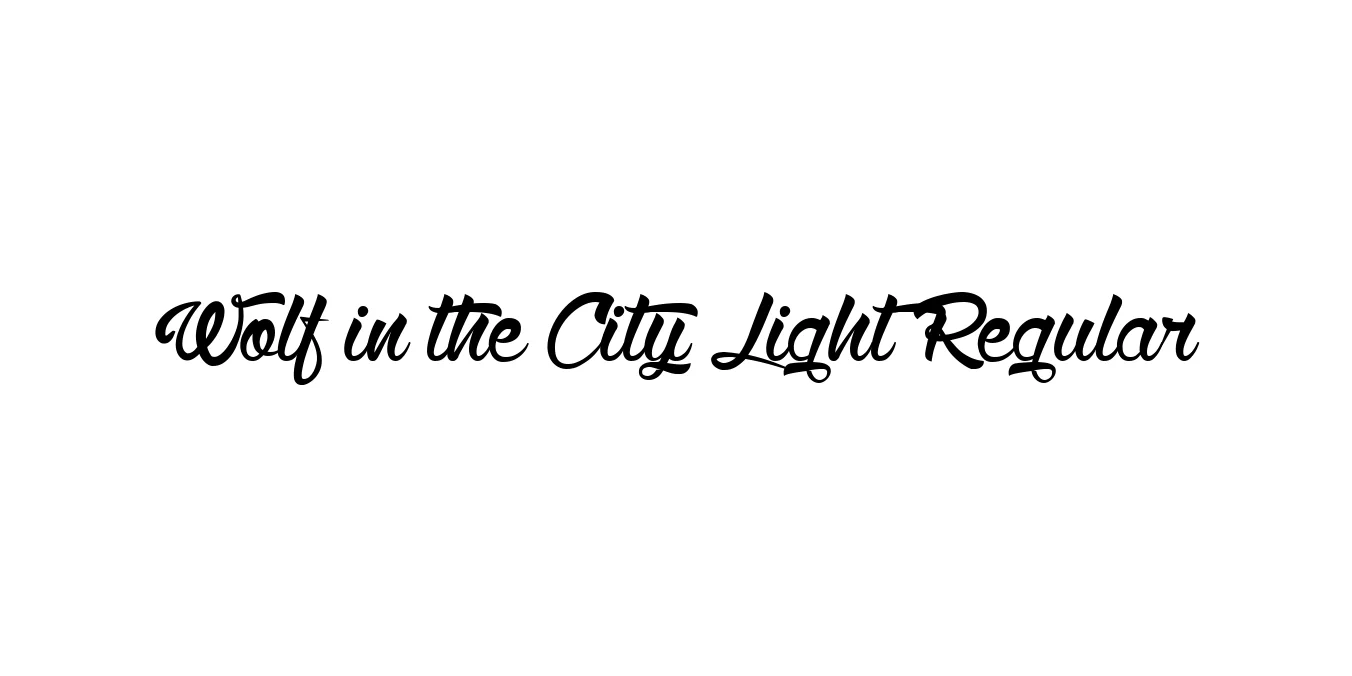
Wolf in the City Light Regular
Wolf in the City Light Regular is a stylish and expressive script typeface designed by the renowned artist Maelle.K. It captures a unique urban essence, combining the fluidity of traditional calligraphy with a modern, edgy street-style influence. The light weight of this specific version provides a delicate, airy feel that maintains high legibility while offering a sophisticated, hand-drawn aesthetic that feels both personal and professional.
This typeface is widely recognized for its authentic handwritten strokes and rhythmic flow, making it a favorite among designers looking to inject personality into their projects. Whether used for minimalist branding or high-energy marketing materials, Wolf in the City Light Regular stands out for its versatility and its ability to convey motion and creativity in any digital or print layout.
Wolf in the City Light Regular Best Uses
Excellent for creating unique, signature-style brand identities.
Perfect for eye-catching Instagram quotes and stylish story overlays.
Adds a sophisticated touch to wedding invitations and personal letters.
Ideal for trendy graphic tees and modern streetwear labels.